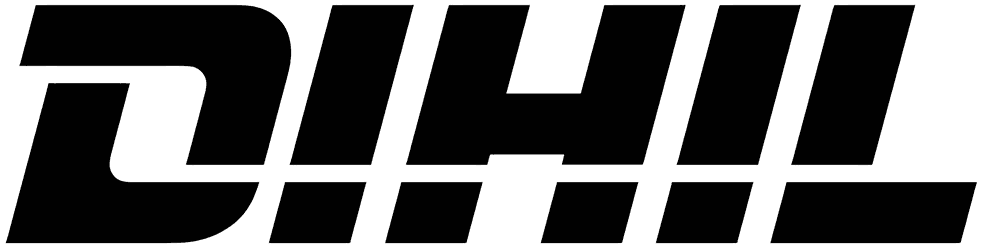
Dihil Font
An ultra-modern and powerful visual will give a stunning mood to your futuristic layout, and this racing font has the potential to do it. The lowercase letters are not available, but it offers two sets of capital letters. Apply the Dihil font for your next design, such as a car rental billboard or others, to make them bold and eye-catching.